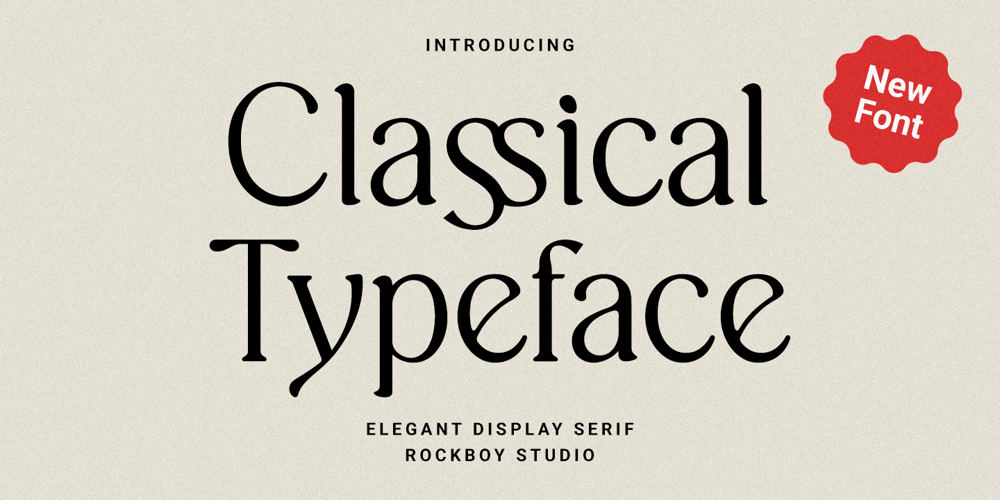
Classical Typeface
Classical Typeface font
Classical Typeface Font Family was designed by Hayinah and published by Rockboys Studio. Classical Typeface contains 1 styles and family package options. Classical Typeface is a classic serif font. This font is perfect for all sorts of projects, such as logo design, branding, web design, packaging, social media, and so much more!